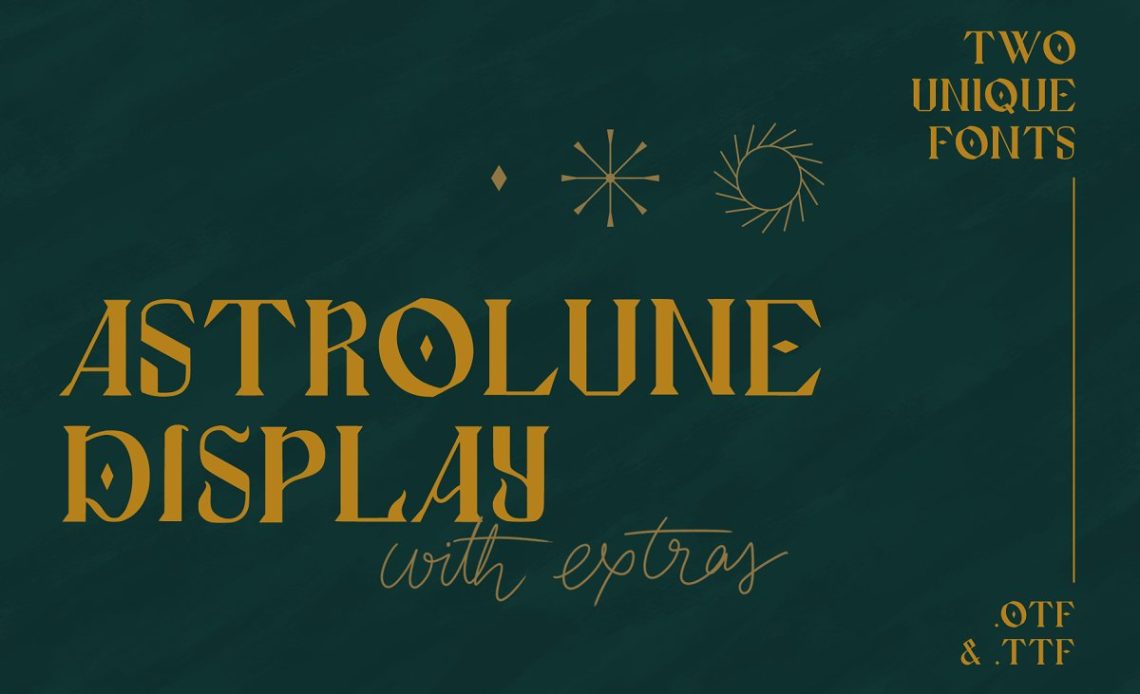
Introducing Astrolune Display - Fonts + extras, the perfect font collection for all your design needs! Created by the talented Carole Chevalier, these fonts are a unique blend of blackletter and hand-drawn elements, giving them a dark and mystical vibe that will captivate your audience.
Whether you're working on branding projects or looking to add a bold touch to your typographic creations, the Astrolune Display fonts are the ideal choice. With a total of 226 characters and glyphs, including accents, punctuation, and numbers, these fonts offer endless possibilities for expressing your creativity.
But that's not all - as a bonus, I've included beautifully designed constellations and stars that perfectly complement the fonts. These graphics are available in black, white, gold, cream, and emerald green, giving you even more options to create stunning layouts and patterns.